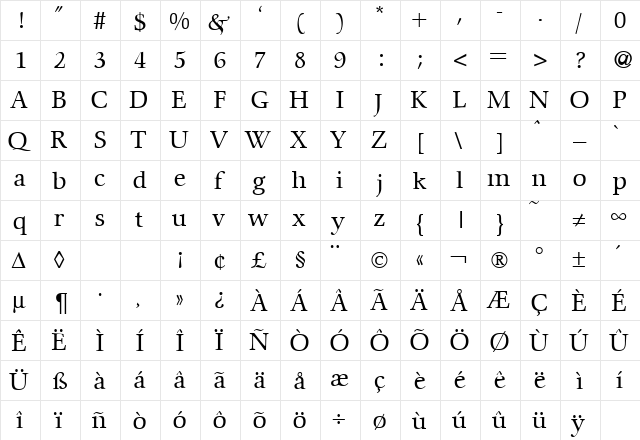
Commencement Regular
Design Context for Commencement Typeface
Commencement offers clean, dependable letterforms without strong stylistic allegiance, making it a practical choice for designers who need flexibility.
Pro Tip: Use Commencement in both headline and body roles to test its range before committing to a single application.